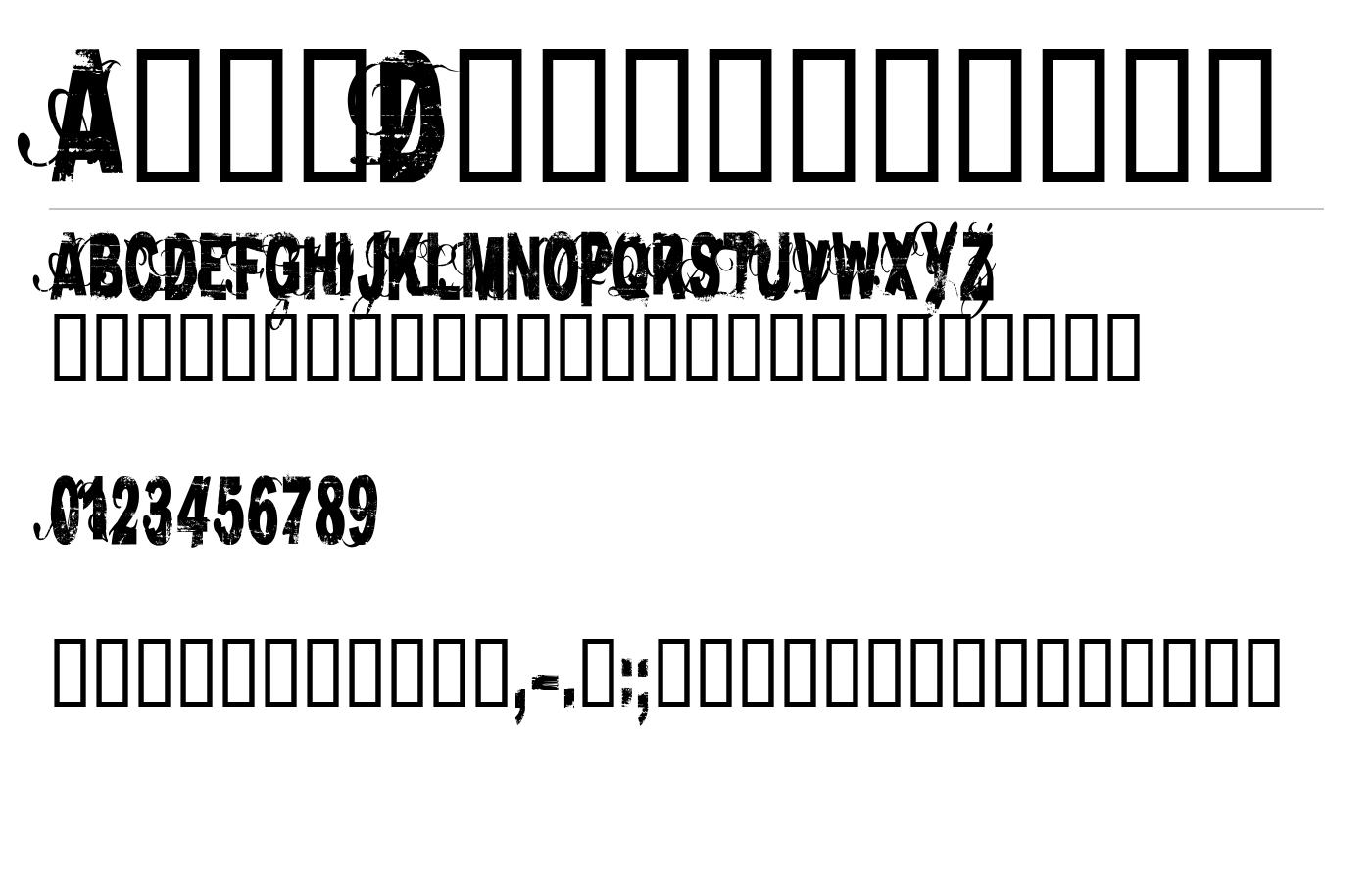
AutoDestruction is a bold, distressed sans serif font that combines strong, heavy letterforms with chaotic, grunge-style textures and ornamental swashes. Its rough, shattered appearance gives it a rebellious and edgy personality, making it perfect for creating striking logos, posters, or designs that aim to convey a sense of urban decay or raw energy. This font works well in attention-grabbing headlines and branding where a powerful, unconventional vibe is desired.
AutoDestruction Font
About AutoDestruction Font
| Font family | AutoDestruction Font |
| Designer | Steve Cloutier |